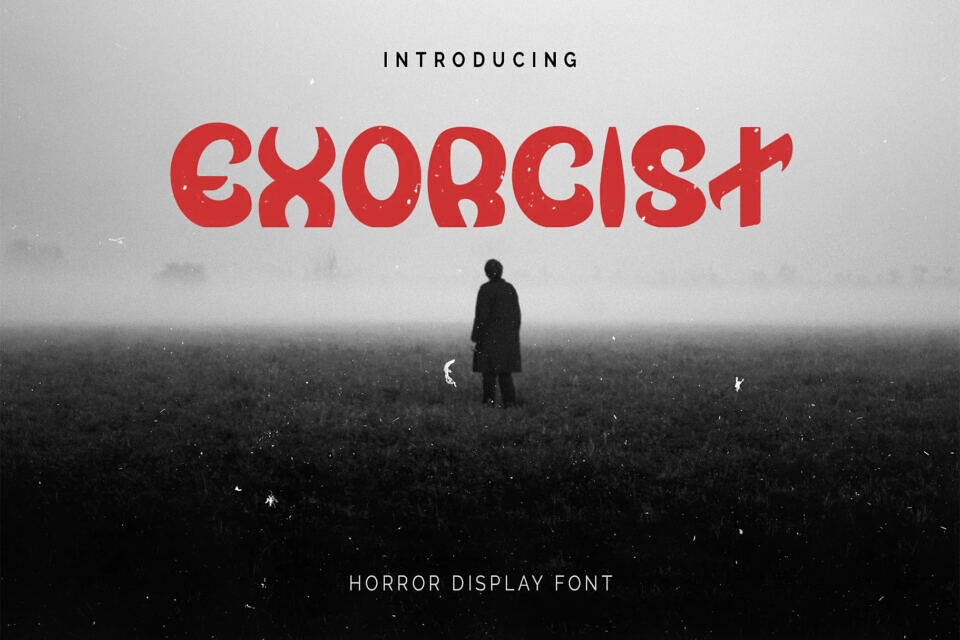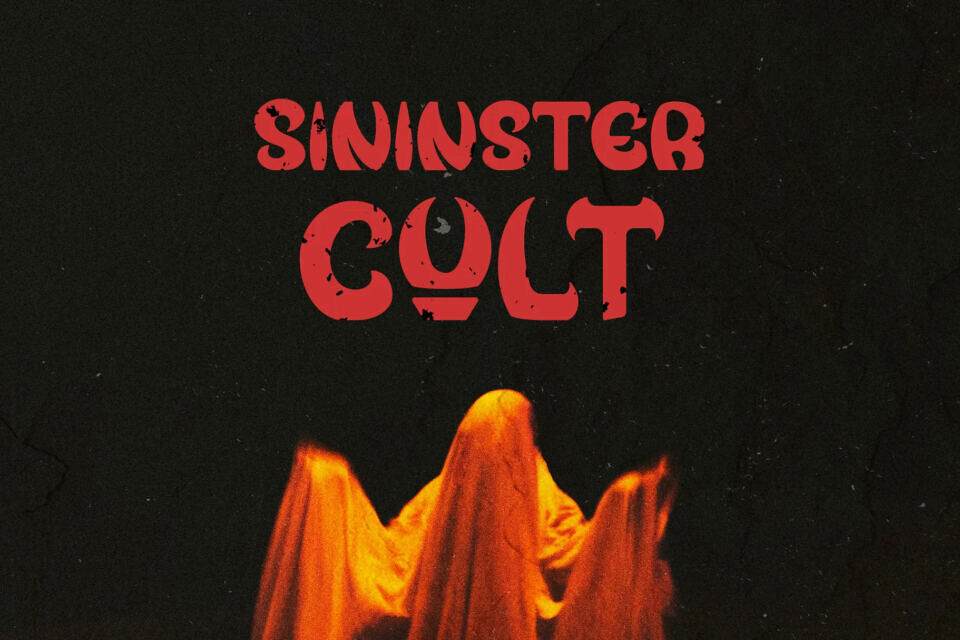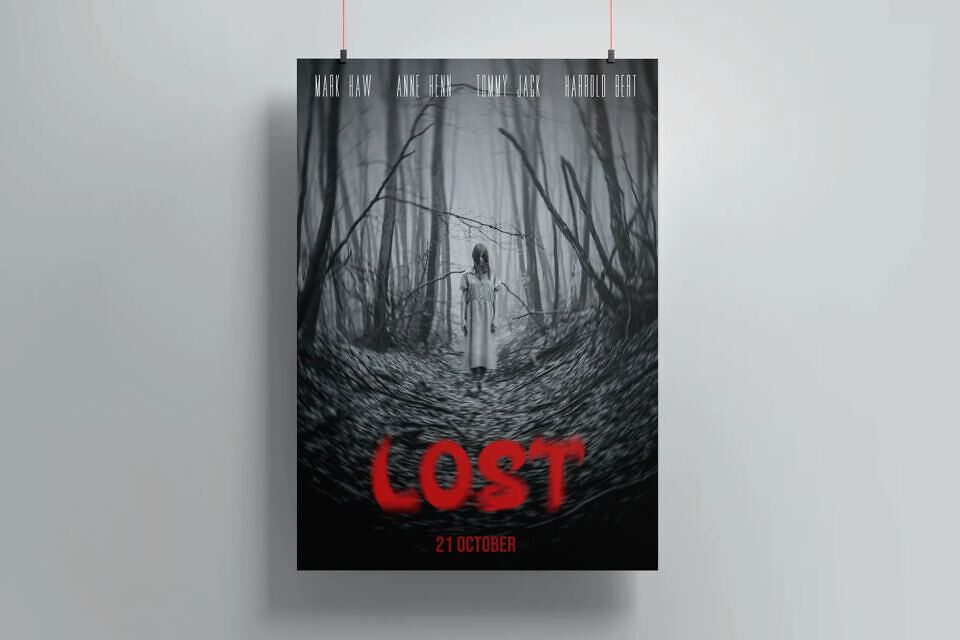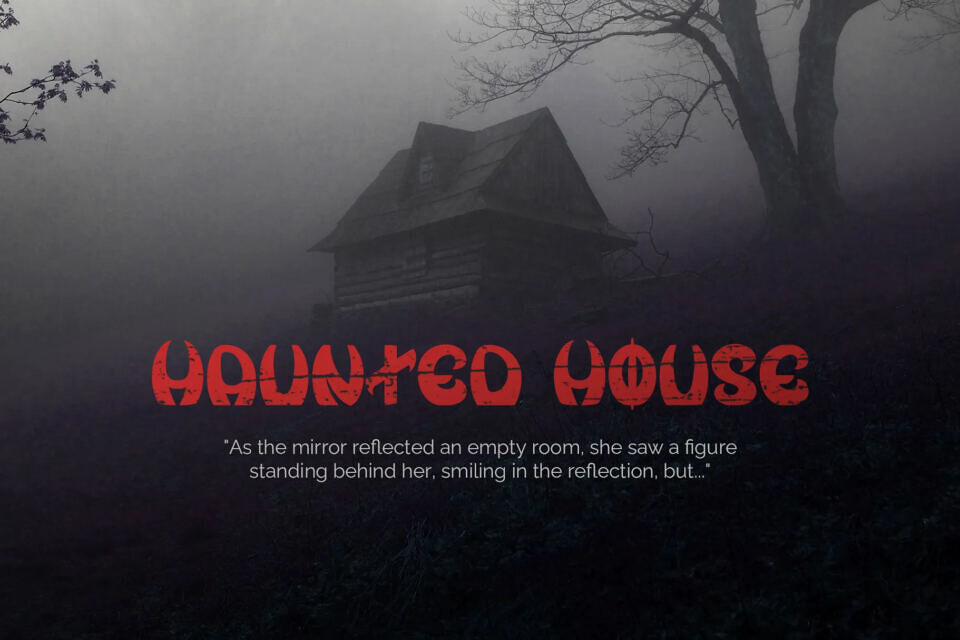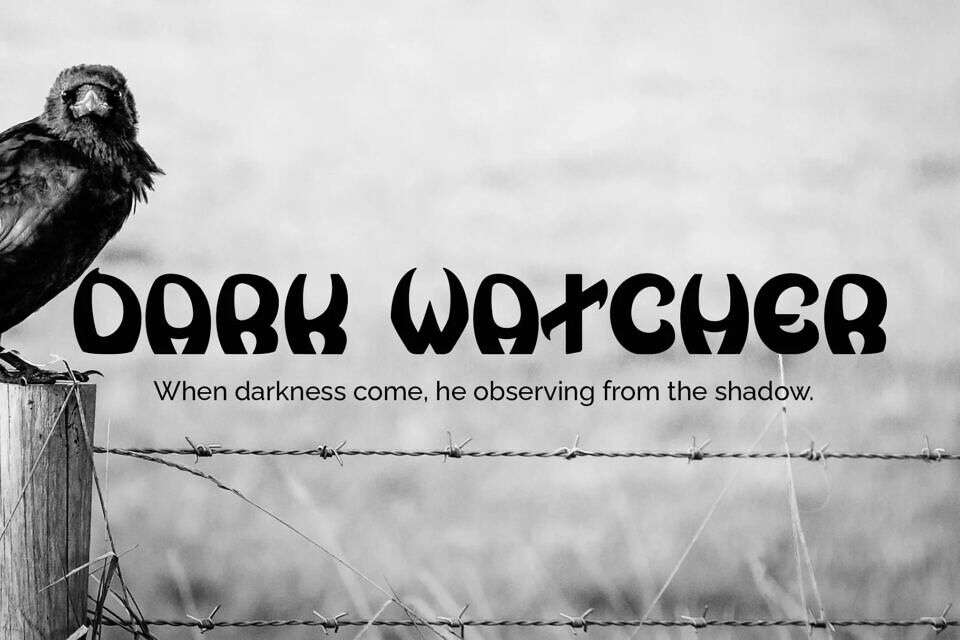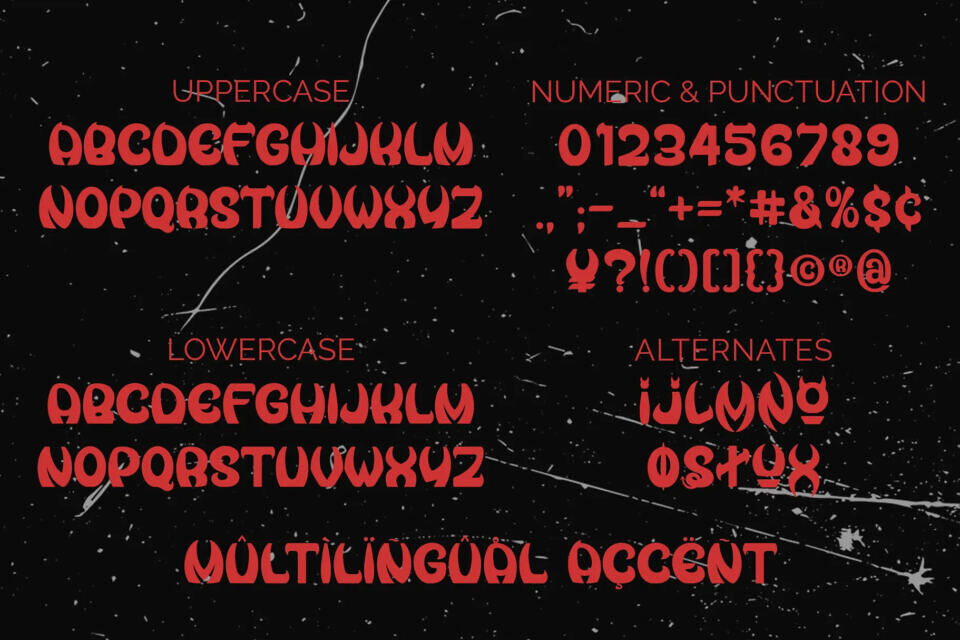
Exorcist Font
Introducing Exorcist, a font that channels the scary and mysterious. Exorcist offers a unique blend of elegance and menace, perfect for setting a foreboding tone in your design. Named for its ability to exude an aura of otherworldly dread, Exorcist is tailor-made for Halloween projects, and anything that requires a touch of intimidation.
Its pointed tips add a subtle edge, while its rounded curves soften the overall feel, creating a font that is both chilling and captivating. With its alternates offer a customization, allowing you to create a truly unique and terrifying look that will leave a lasting impression on your audience.